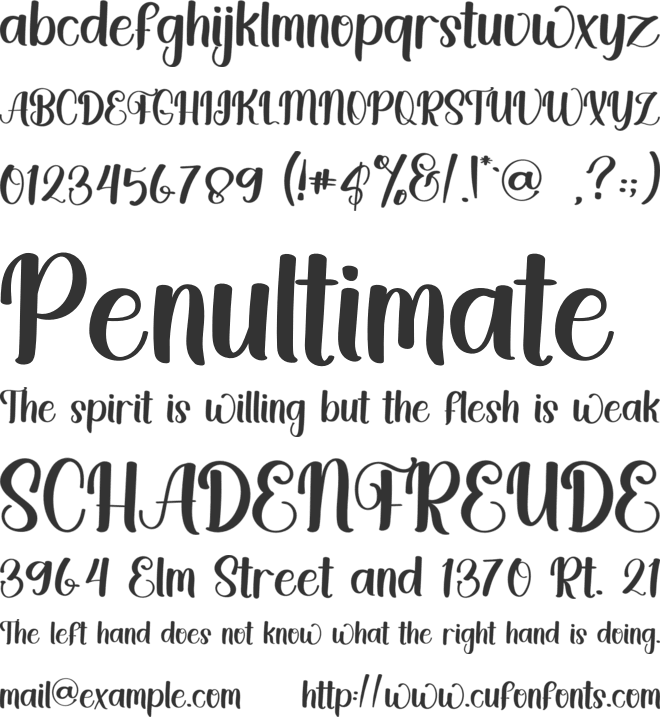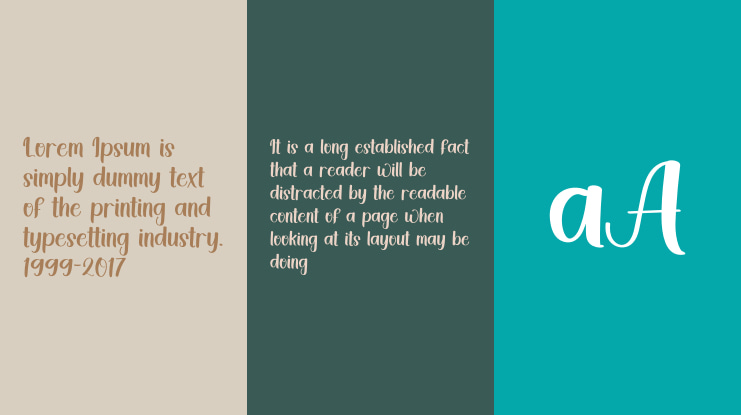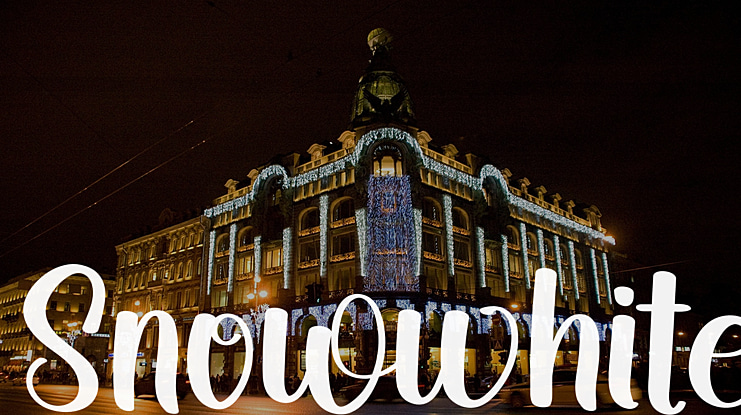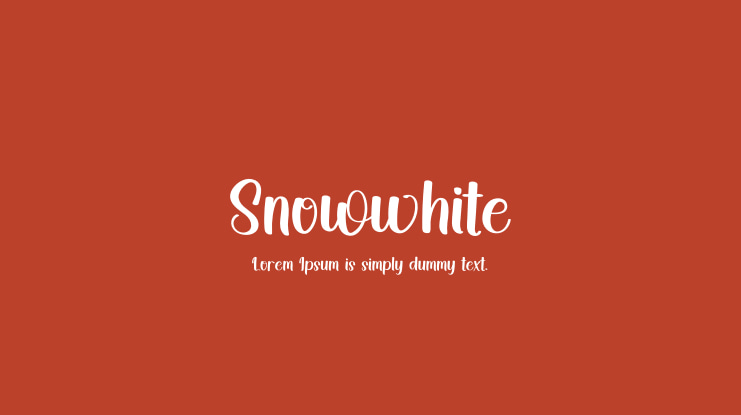
Snowwhite Font
This is a relaxed and beautiful paint brush handwritten font. It can be used for various purposes such as logos, wedding invitations, headings, t-shirts, letterhead, signage, labels, news, posters, badges and so much more.